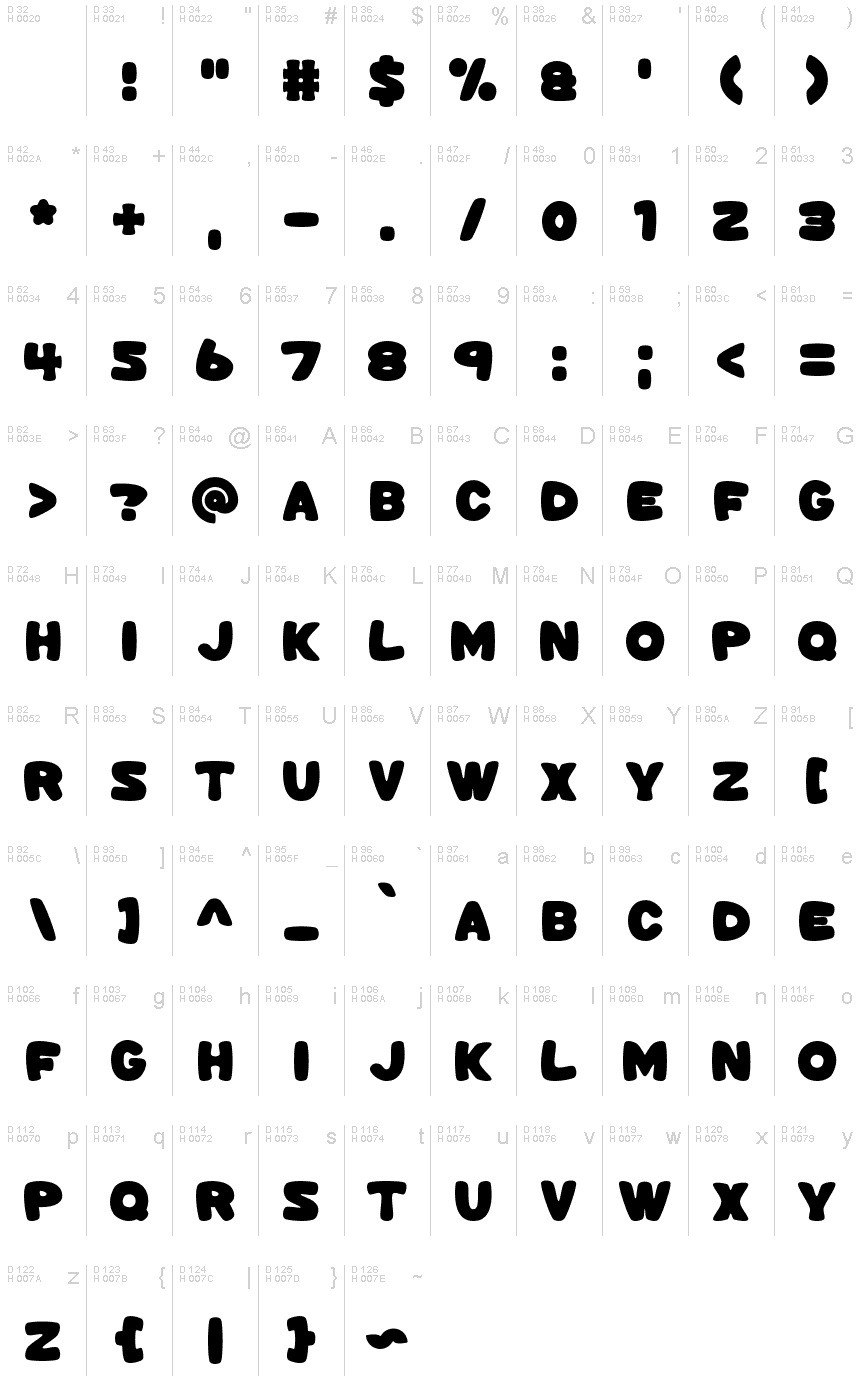
Emotional Baggage
Embrace the playful charm of Emotional Baggage, a display font crafted with a whimsical twist by Chequered Ink. With its cartoon-style demeanor and extra-bold weight, this semi-expanded typeface is a delightful addition to any creative endeavor seeking to inject personality and light-heartedness. The unique contours and buoyant character of Emotional Baggage make it an ideal choice for projects that aim to stand out with a touch of humor and originality.
From captivating children's books to dynamic branding materials or eye-catching event invitations, this font ensures your message is wrapped in fun and delivered with a memorable impact. Explore the endless possibilities where Emotional Baggage can carry your designs on a journey of expressive creativity.